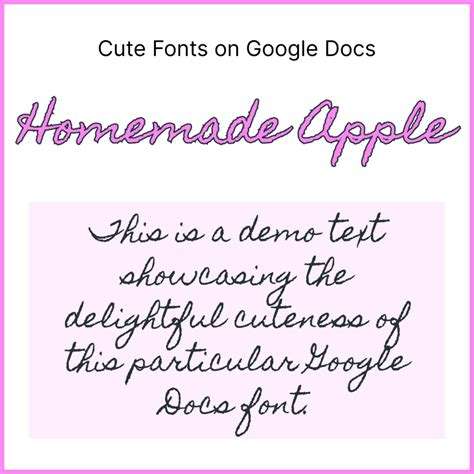
Pretty Fonts On Google Docs. Covered by your grace 6. Web aesthetic fonts on google docs 1.
Aesthetic Fonts In Google Docs
Web aesthetic fonts on google docs 1. Web cute fonts on google docs 1. Web making the web more beautiful, fast, and open through great typography Covered by your grace 6. Web best fonts to use for google doc inter. Web pretty fonts on google docs 1. When it comes to documents, readability will always be a top priority, and inter excels at this game.
Web best fonts to use for google doc inter. Web cute fonts on google docs 1. Web pretty fonts on google docs 1. When it comes to documents, readability will always be a top priority, and inter excels at this game. Web best fonts to use for google doc inter. Covered by your grace 6. Web making the web more beautiful, fast, and open through great typography Web aesthetic fonts on google docs 1.